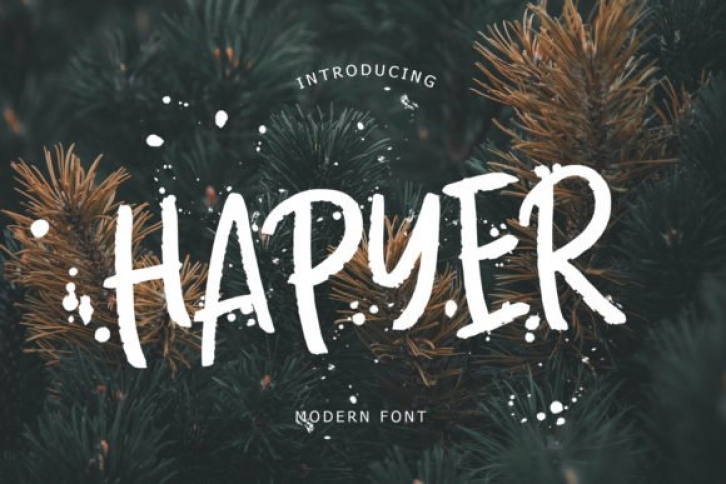
Hapyer is a modern and hipster handwritten font. This font is perfect for branding projects, logos, t-shirt designs, social media posts, advertisements, product packaging, and so much more.